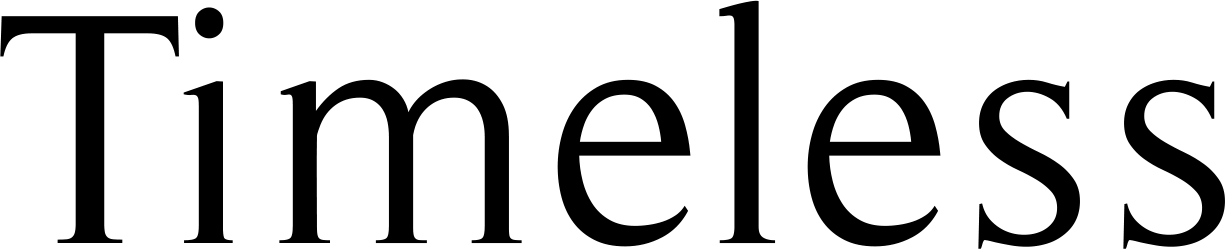
Timeless Font
The classic and modest look always has its fans, and Timeless is one of them. This serif font with two weights is enforceable for any purpose you want. As an A-Z font, you can use Timeless for short or long texts like posters, business cards, magazines, or any other projects with various themes.